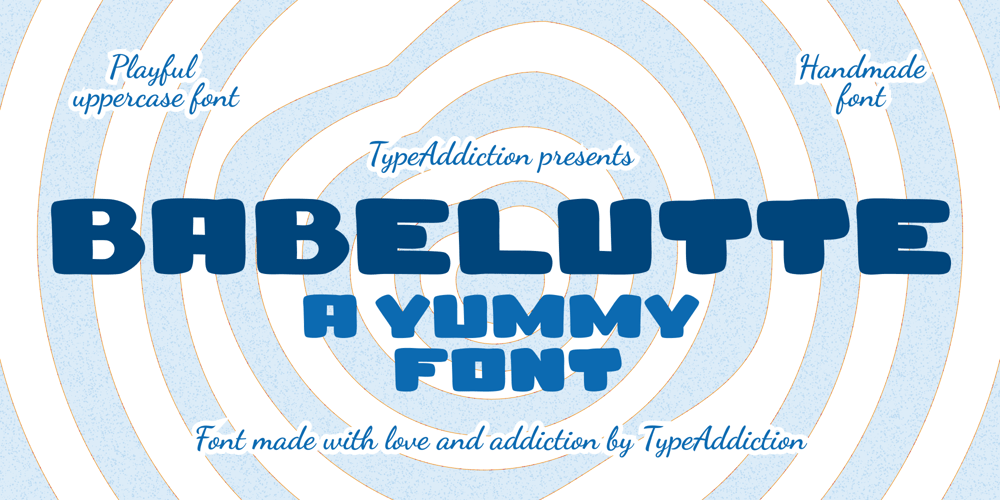
Babelutte Font Family was designed by Virginie Mangelinck and published by TypeAddiction. Babelutte contains 1 styles and family package options. TypeAddiction presents “Babelutte”, a playful handmade uppercase font. Lowercase letters have unfilled letters (A, B, D, O etc) and the uppercase letters have filled letters. Babelutte is an old-fashioned candy coming from Belgium’s seaside. The characters of the font were inspired by the shape of the candy.